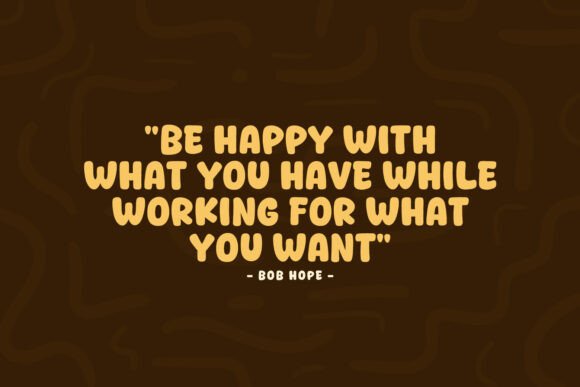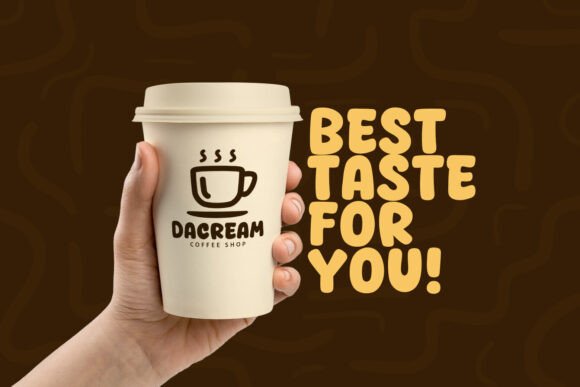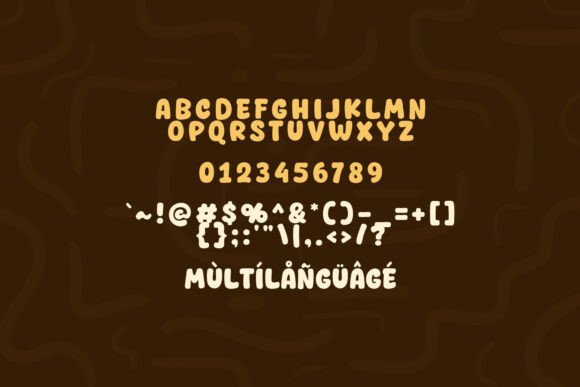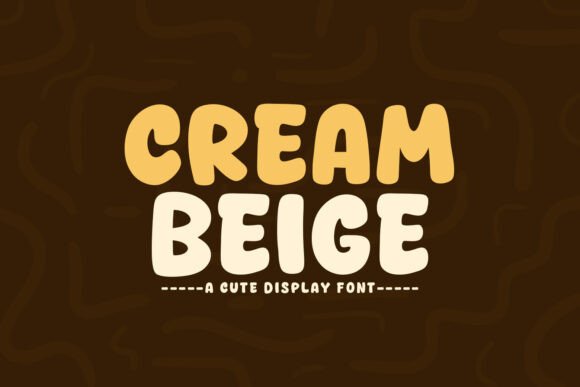
Cream Beige Font: Elevate Your Designs with a Modern and Cute Display Font
Are you a designer or crafter looking for a font that can add a touch of elegance and playfulness to your projects? Look no further than the Cream Beige Font! This modern and cute display font is perfect for a wide range of applications, from posters and logos to magazines, book covers, and banners.
What Makes Cream Beige Font So Special?
Cream Beige Font is a versatile and stylish font that can easily be matched to an incredibly large set of projects. Its unique blend of modern and playful elements makes it stand out from other fonts, and its high-quality design ensures that it will look great in any context. Whether you’re creating a professional-looking brochure or a fun and quirky poster, Cream Beige Font is the perfect choice.
One of the best things about Cream Beige Font is its incredible versatility. It’s perfect for a wide range of projects, including:
- Posters: Add a touch of elegance and sophistication to your posters with Cream Beige Font.
- Logos: Create a memorable and eye-catching logo for your business or brand with this modern and cute display font.
- Magazines: Use Cream Beige Font to add a touch of style and sophistication to your magazine layouts.
- Book Covers: Make your book cover stand out with this unique and eye-catching font.
- Banners: Create a stunning banner for your website or social media channels with Cream Beige Font.
Why Choose Cream Beige Font?
So why should you choose Cream Beige Font for your next project? Here are just a few reasons:
- Modern and Cute Design: Cream Beige Font has a unique and stylish design that’s perfect for designers and crafters who want to add a touch of elegance and playfulness to their projects.
- High-Quality Design: This font is designed with high-quality and precision, ensuring that it will look great in any context.
- Versatile: Cream Beige Font is perfect for a wide range of projects, from posters and logos to magazines and book covers.
- Easily Customizable: This font is easy to customize, making it perfect for designers and crafters who want to add their own personal touch to their projects.
Tips and Tricks for Getting the Most Out of Cream Beige Font
Here are a few tips and tricks for getting the most out of Cream Beige Font:
- Experiment with Different Sizes and Colors: Try out different sizes and colors to see what works best for your project.
- Pair with Other Fonts: Cream Beige Font pairs well with other fonts, so don’t be afraid to experiment with different combinations.
- Use it for Headlines and Titles: Cream Beige Font is perfect for headlines and titles, so use it to add a touch of elegance and sophistication to your project.